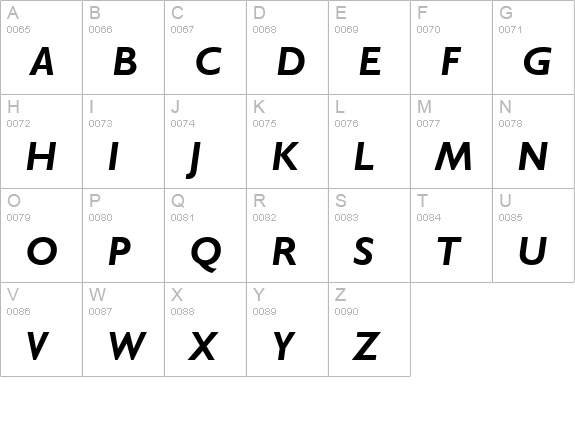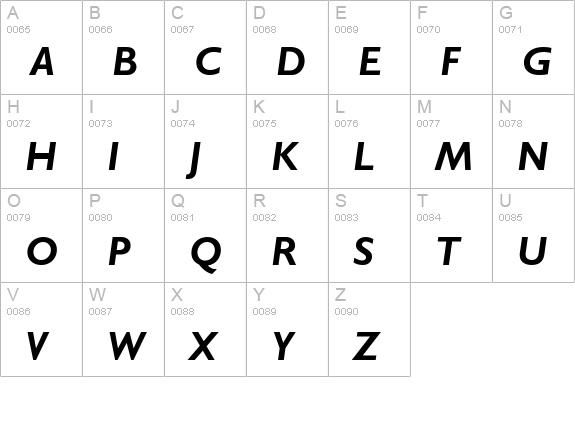
Gill SSi Bold Italic is a strong, high-contrast, italic variant in the Gill typeface family \xE2\x80\x94 well suited to headlines, attention-grabbing titles, and strong calls-to-action.
The Gill SSi Bold Italic font is a bold and stylish typeface that exudes sophistication and elegance. Its unique combination of boldness and italicized slant adds a touch of flair to any design project. The sleek and modern look of this font makes it perfect for a wide range of applications, from branding to editorial design. What's even better is that this font is available for free download at FontsMarket.com. That's right, you can easily access this high-quality font at no cost, making it a fantastic choice for designers and creatives looking to enhance their projects without breaking the bank. Don't miss out on the opportunity to elevate your designs with the Gill SSi Bold Italic font – download it for free today!